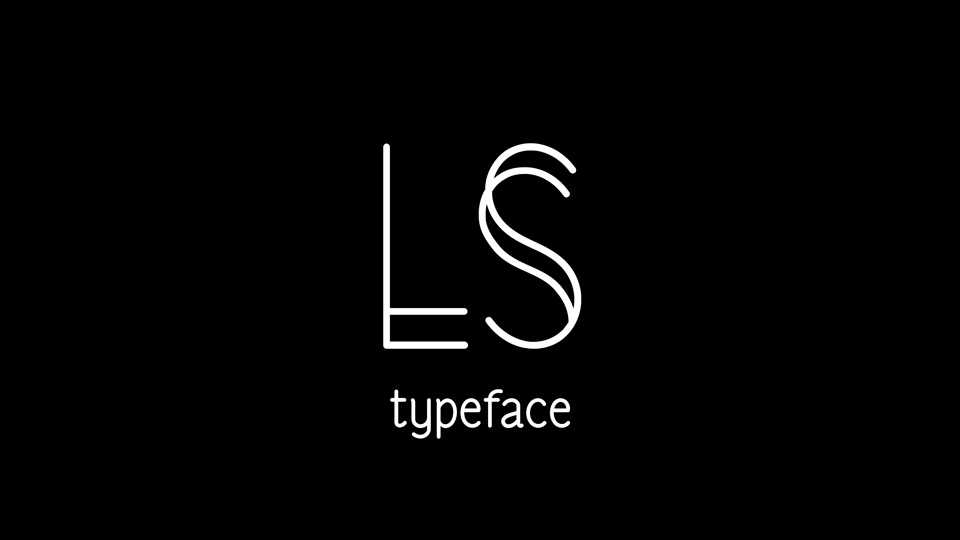
Download LS font family, a clean, soft condensed sans serif typeface with creative elements in three weights and also two formal alternates. It works well both for texts and titling, logos and branding, posters, prints and other creative typographic projects.
Designer: Bastien Sozeau